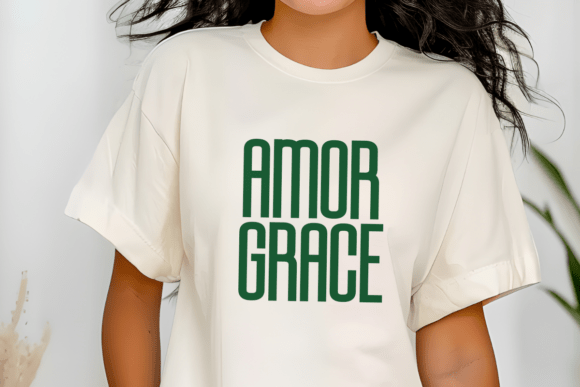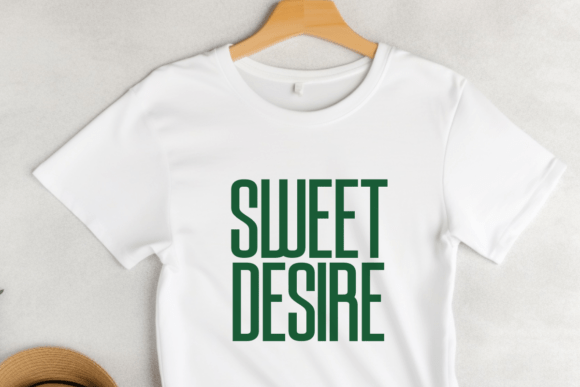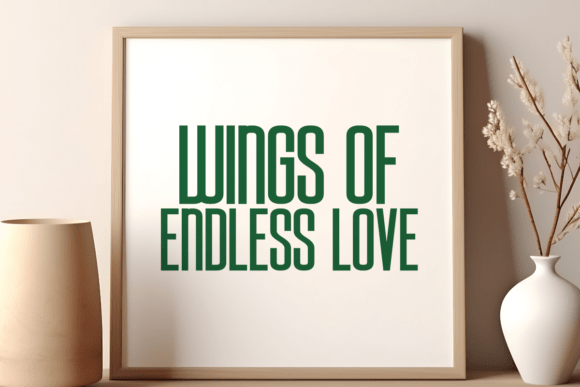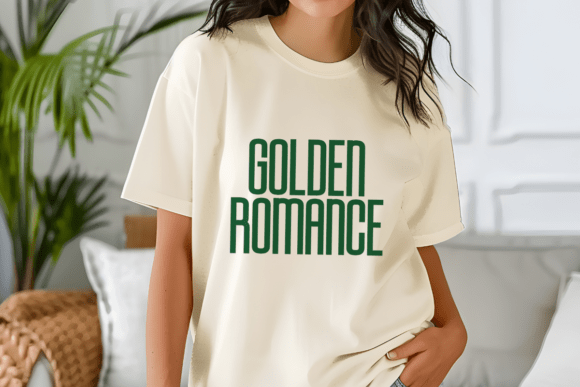
I still remember the frustration of working on a project, hours spent perfecting every detail, only to be stumped by one thing: the font. My client wanted something sleek, stylish, and eye-catching, but I just couldn’t seem to find it. That was until I stumbled upon Amoresa Font. With its clean aesthetics and strong visual impact, it quickly became my go-to for a wide range of projects.
Amoresa Font: A Designer’s Dream
Amoresa is a sleek and stylish condensed sans serif font designed specifically for creators who value clean aesthetics and strong visual impact. Its tall, narrow letterforms and elegant spacing make it perfect for a variety of applications, from Print On Demand projects like t-shirts, posters, mugs, and tote bags, to film titles, branding, logos, and modern packaging.
What I Love About Amoresa Font
- ✨ Clean and Elegant Design: Amoresa’s sleek lines and elegant spacing make it perfect for projects that require a touch of sophistication.
- ✅ Versatile Style: This font fits both professional and playful designs, making it ideal for crafting projects, minimalist branding, or cinematic visuals.
- 🌟 Easy to Read: Despite its condensed style, Amoresa remains highly legible, even at smaller sizes.
While Amoresa Font is an excellent choice for many projects, there are a few minor considerations to keep in mind:
- 🤔 Limited Character Set: As with any font, there may be limitations to the character set, so it’s essential to review the font’s capabilities before committing to a project.
- ⚠️ Overuse: Due to its sleek and stylish design, Amoresa can be overused. Make sure to balance it with other design elements to avoid a cluttered look.
The Designer Inspiration Behind Amoresa
Amoresa Font was designed with the modern creator in mind. Its sleek lines and elegant spacing are inspired by the clean aesthetics of contemporary design. Whether you’re working on a Print On Demand project or crafting a cinematic visual, Amoresa is the perfect choice.
| Is Amoresa Font suitable for body text? | While Amoresa is highly legible, its condensed style makes it more suitable for headlines and titles. For body text, consider a font with a more traditional x-height. |